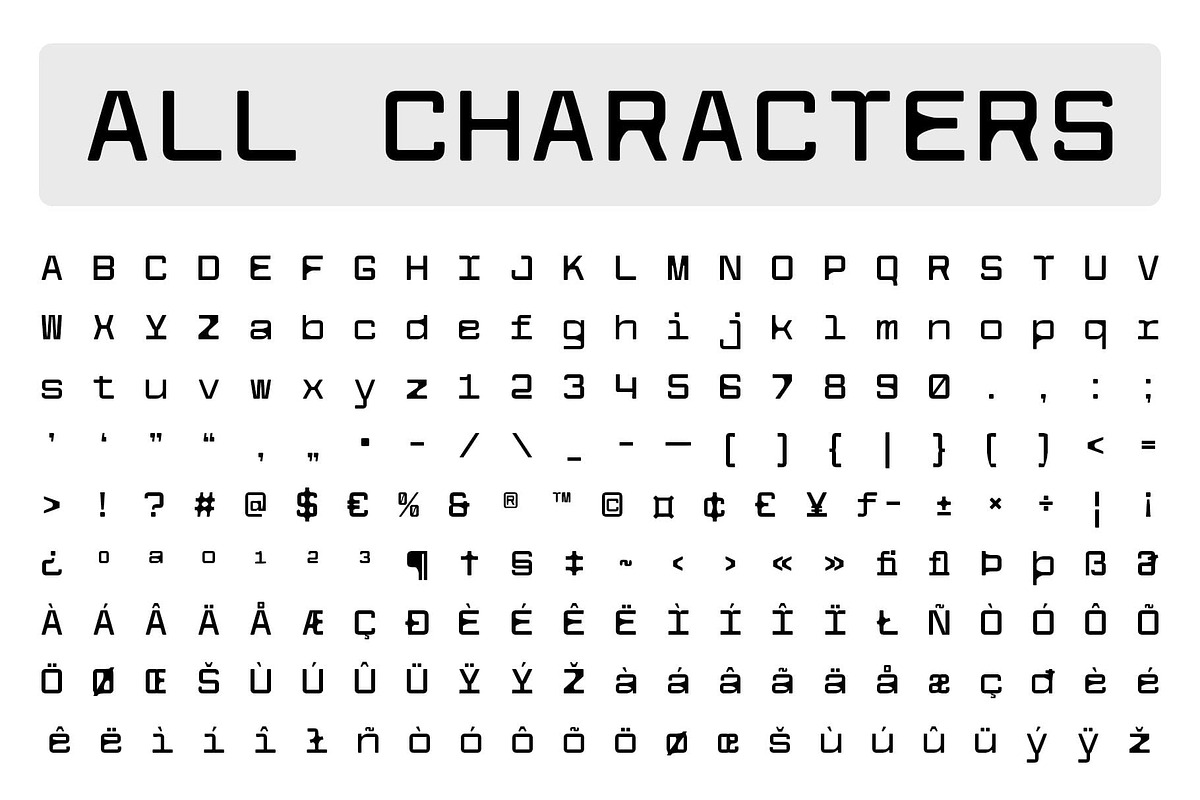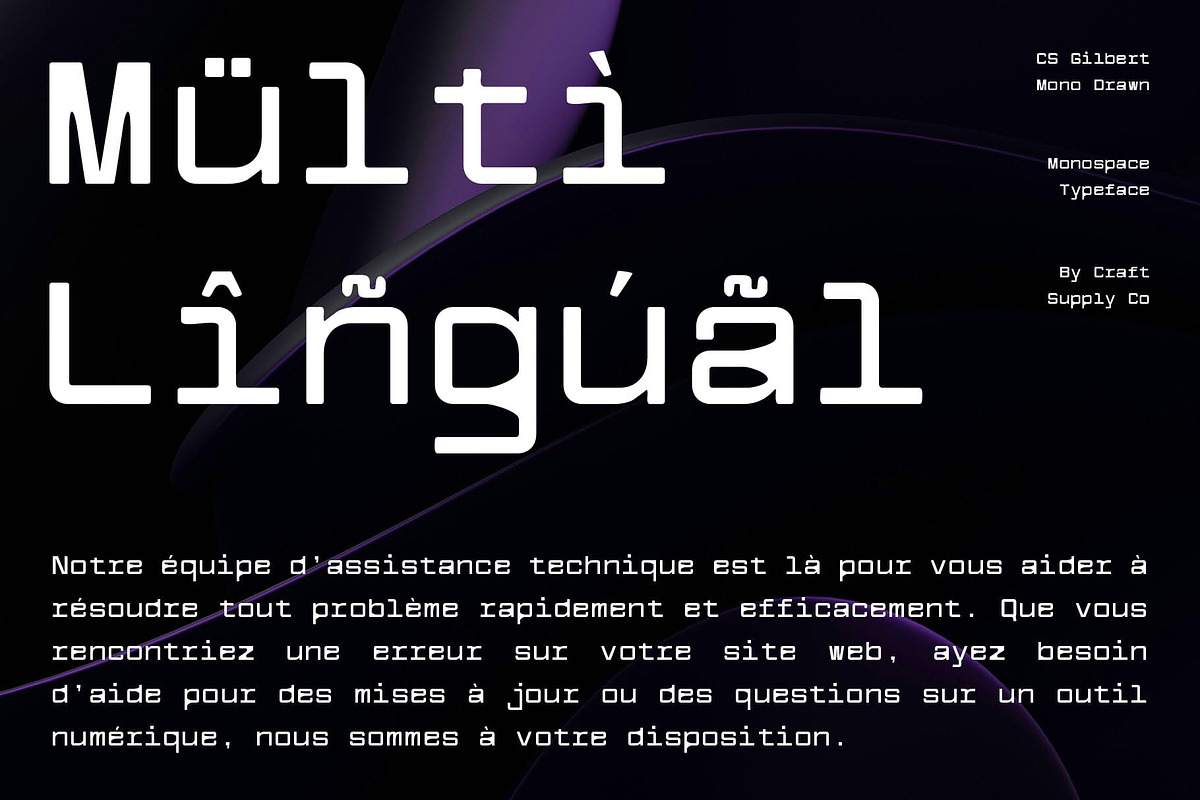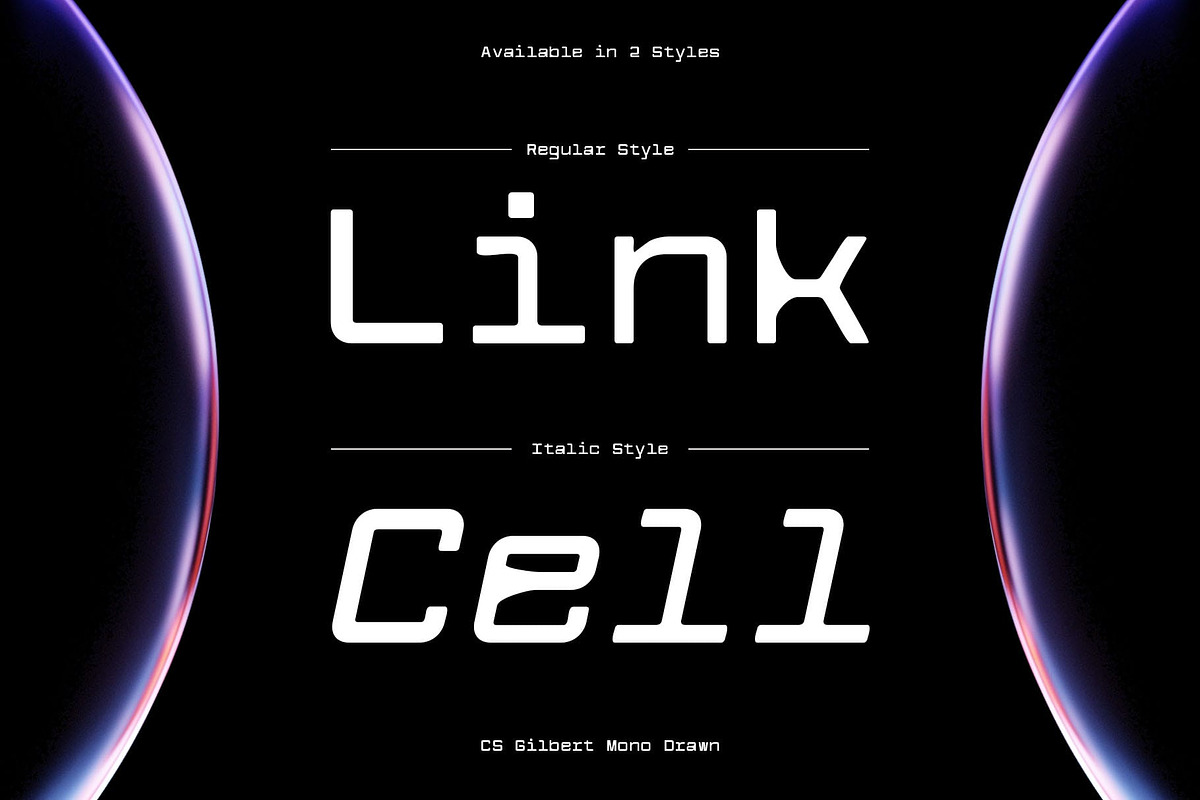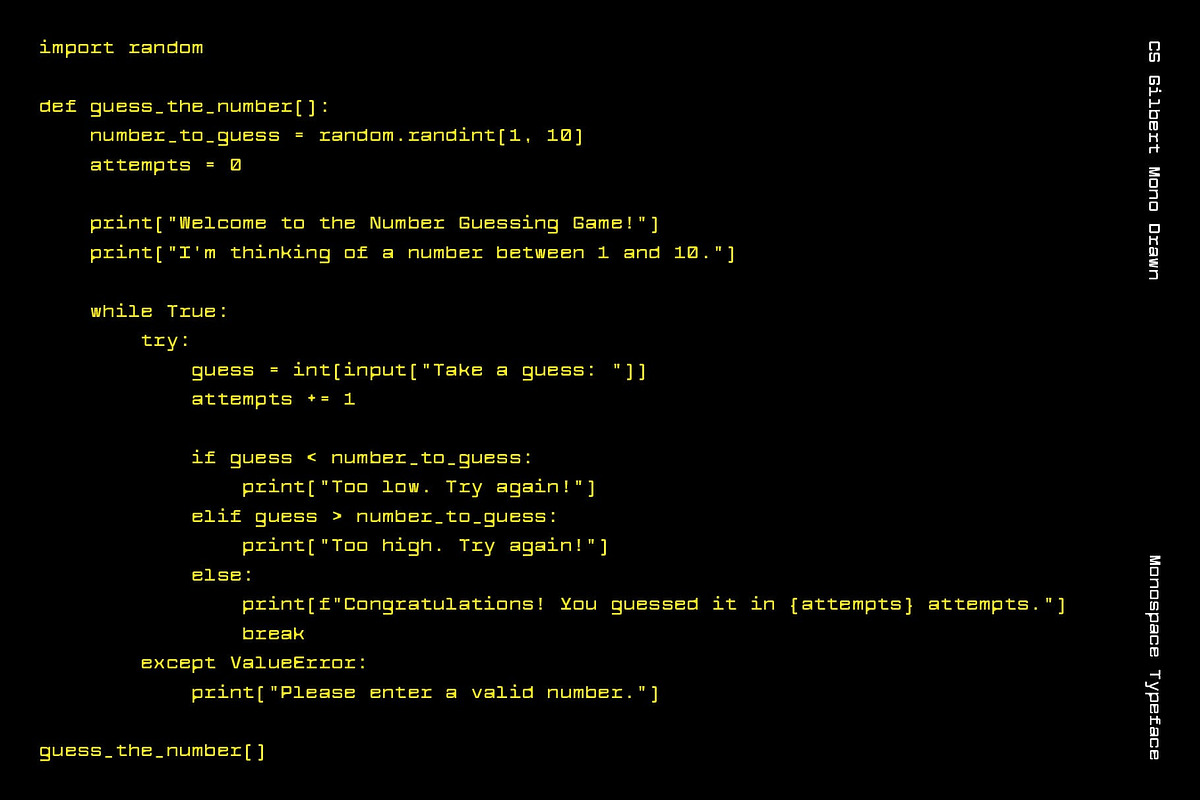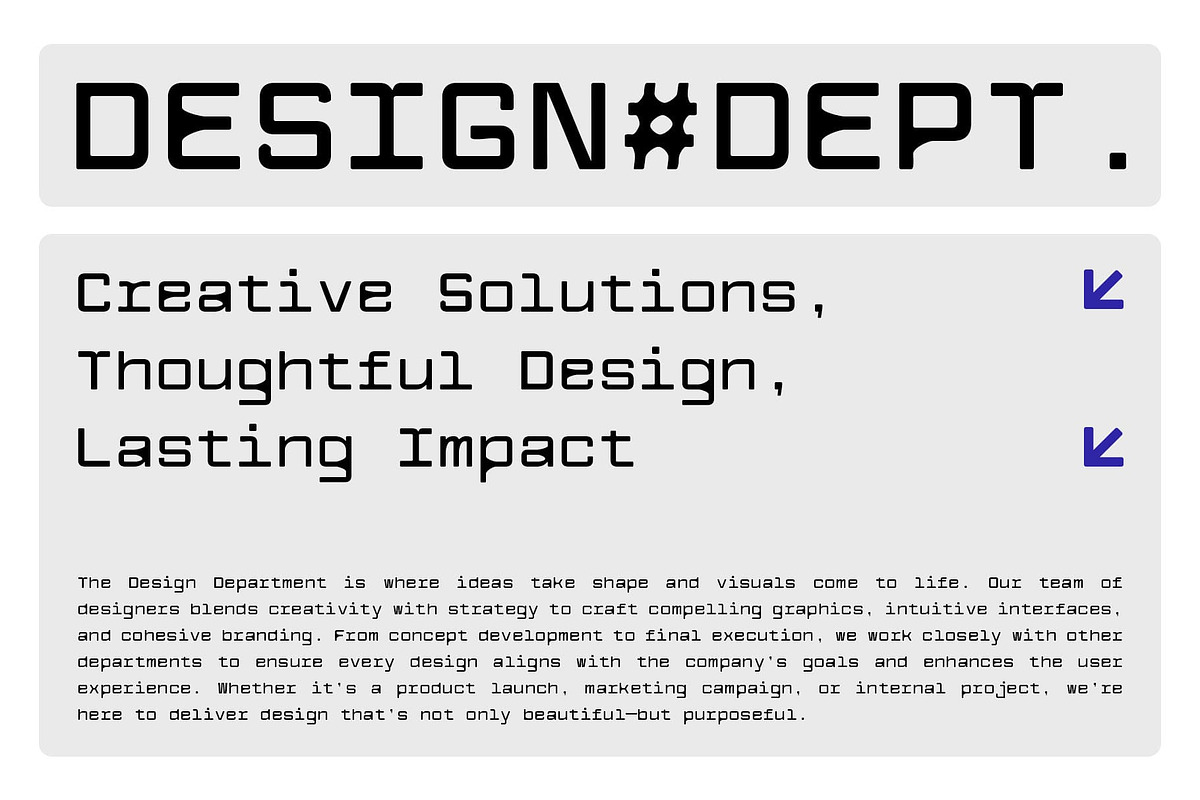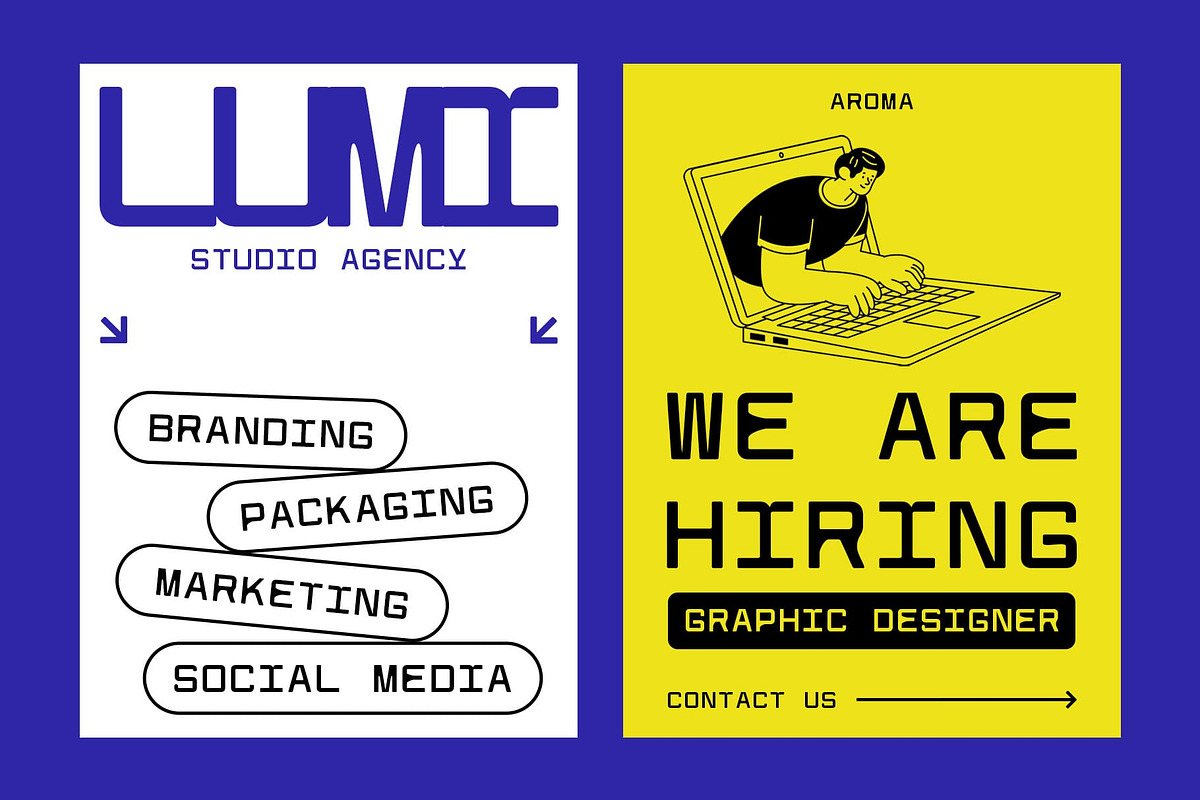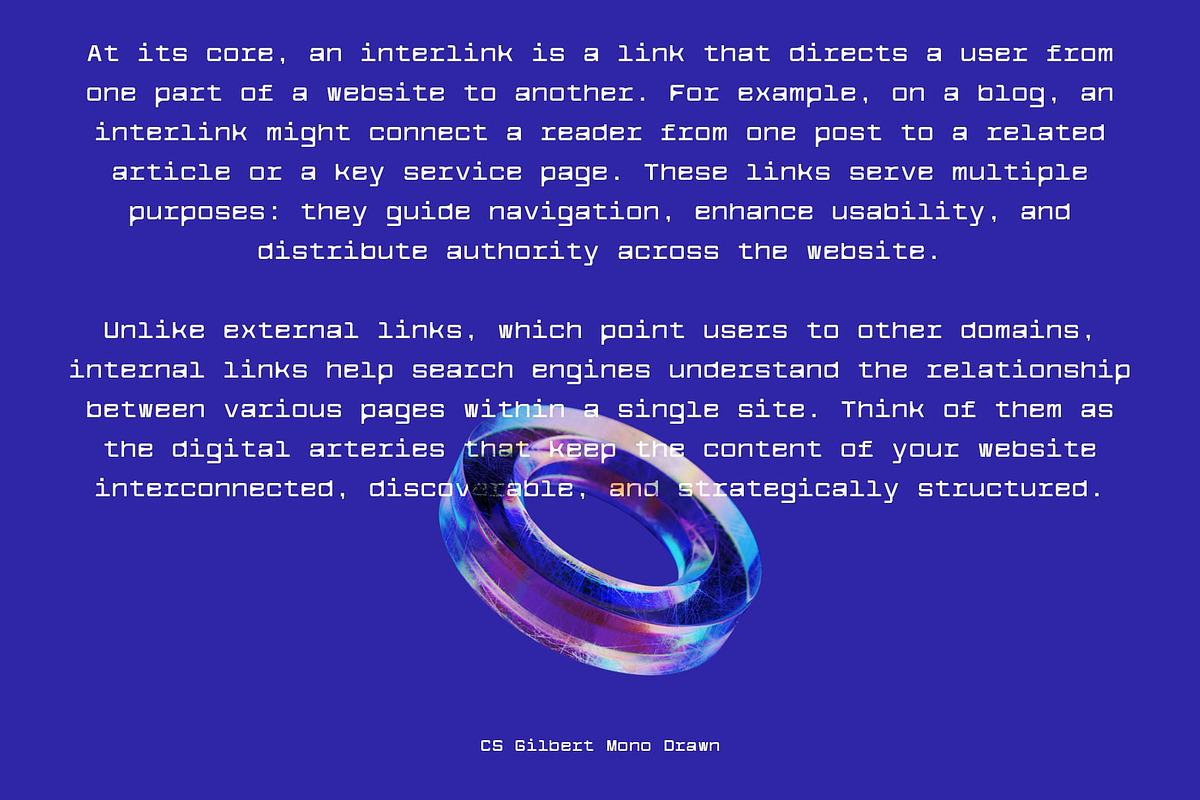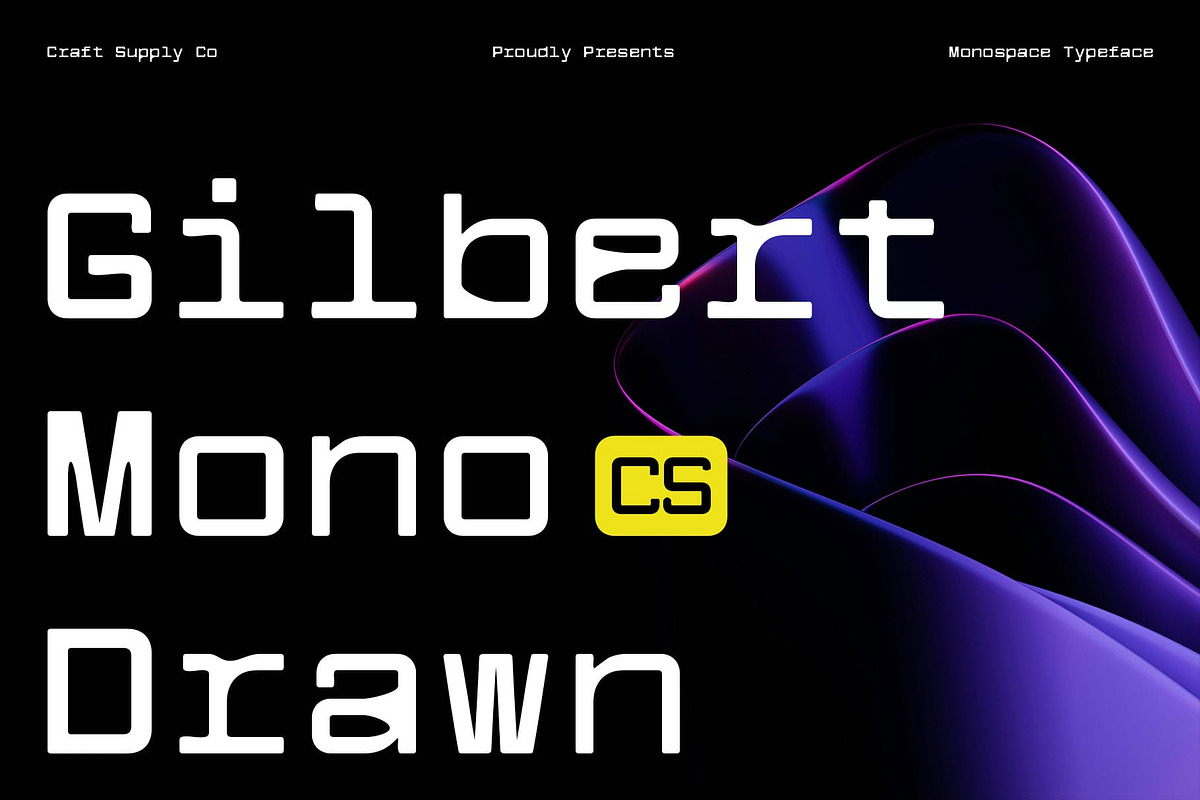
CS Gilbert Mono Drawn
CS Gilbert Mono Drawn – Geometric Monospaced Font with a Human Touch
Clean Geometry with a Crafted Edge This is a modern sans-serif font with a geometric monospaced structure that reflects clarity, precision, and minimalism. What sets it apart is the subtle drawn effect, which introduces a sense of handcrafted warmth to its otherwise structured and mechanical form—resulting in a font that feels both systematic and expressive.
Order, Balance, and Character Its monospaced rhythm ensures uniformity and balance across every line of text, while the smooth curves and geometric consistency provide a distinctly modern and technical aesthetic. The drawn texture softens this precision, adding just the right amount of personality to keep it from feeling sterile or cold.
Perfect for Digital and Creative Work Whether you’re designing for tech startups, app interfaces, editorial spreads, or modern brand identities, this balanced and functional font delivers a design language that’s clean, contemporary, and infused with individuality. It works especially well in code-themed visuals, data-centric layouts, and modern typography systems that require both functionality and style.
Technical Style Meets Visual Warmth This minimalist yet expressive font is an excellent choice when your design needs structured elegance without sacrificing emotional resonance. It redefines what a monospaced font can be—not just functional, but also inviting and creative.